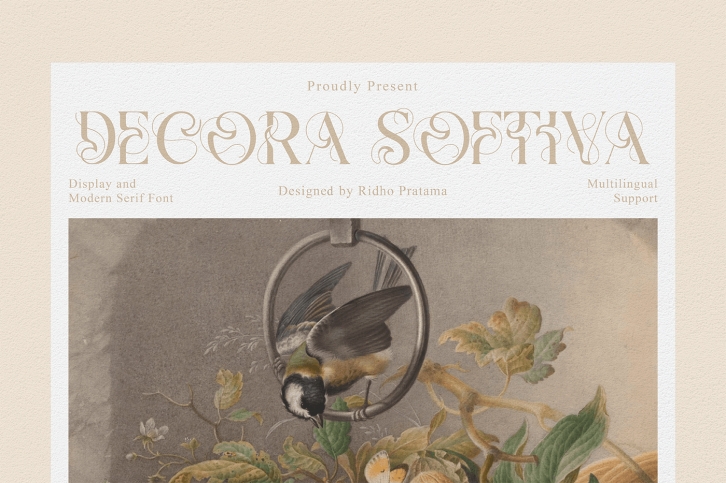
Decora Softiva is a modern serif font with swirl decorative ornaments. Use this serif font to add that unique and aesthetic touch to create spectacular designs!